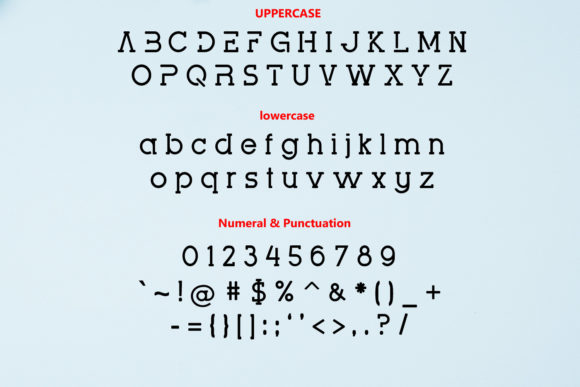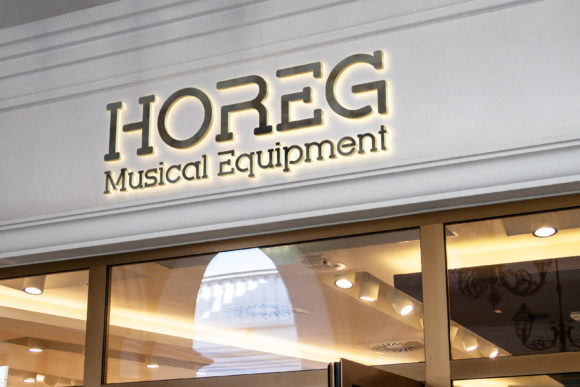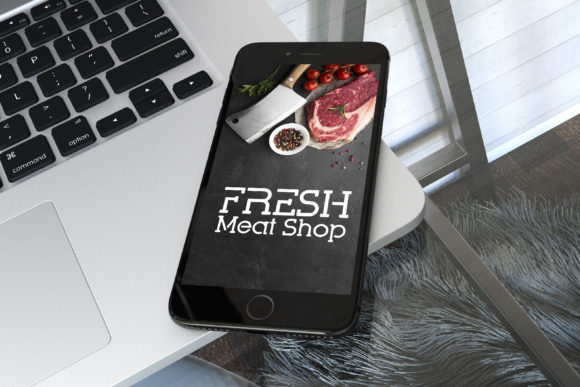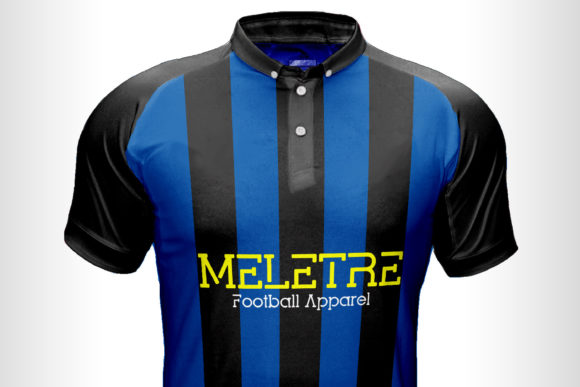
Introducing Break Font: The Ultimate Slab Serif for Modern Designs
In the world of typography, a good font can make all the difference in elevating your design to the next level. If you’re a designer, crafty enthusiast, or simply someone who appreciates the art of typography, you’re in luck! Meet Break Font, a minimal yet elegant slab serif font that’s about to become your new favorite go-to typeface.
The Beauty of Simplicity
Break Font boasts a neat and simple style that makes it incredibly versatile. Its clean lines, subtle curves, and carefully crafted letterforms create a visually appealing aesthetic that’s hard to resist. Whether you’re working on a branding project, crafting a social media graphic, or designing a beautiful printable, Break Font is the perfect choice.
What Makes Break Font Special?
- Minimalist design: Break Font’s simplicity is its greatest strength. The font’s uncluttered design ensures that your message takes center stage, while the typography provides a sophisticated backdrop.
- Elegant slab serif: The font’s slab serif style adds a touch of elegance and sophistication, making it perfect for designs that require a bit of refinement.
- Highly legible: Break Font is designed to be easy to read, even at small sizes. This makes it ideal for body text, captions, or any other application where clarity is crucial.
- Flexible and adaptable: Break Font’s neutral design ensures that it will fit seamlessly into a wide range of design styles, from modern and edgy to classic and traditional.
Use Break Font for a Variety of Design Projects
Break Font’s incredible versatility means that it can be used for a wide range of design projects, including:
- Branding and logos: Create a lasting impression with a custom logo or brand identity that showcases Break Font’s unique style.
- Social media graphics: Elevate your social media presence with eye-catching graphics that feature Break Font’s elegant typography.
- Printables and crafts: Add a touch of sophistication to your printables, planners, and craft projects with Break Font’s beautiful letterforms.
- Web design: Use Break Font to create stunning website headers, paragraphs, and other typography elements that will leave a lasting impression on your visitors.
Get Creative with Break Font
Whether you’re a seasoned designer or a crafty enthusiast, Break Font is the perfect addition to your typography toolkit. Its simplicity, elegance, and versatility make it an excellent choice for a wide range of design projects.
In conclusion, Break Font is a game-changer for designers and crafters alike. Its unique blend of simplicity, elegance, and versatility makes it the perfect choice for a wide range of design projects. Whether you’re looking to create a stunning brand identity, craft beautiful printables, or simply elevate your typography game, Break Font is the ultimate slab serif font for modern designs.